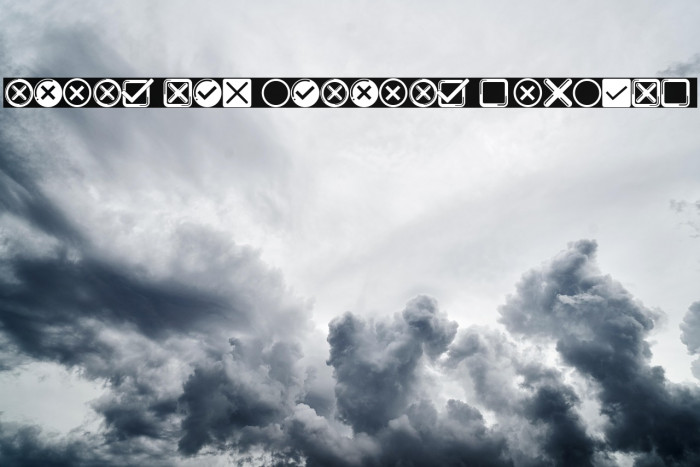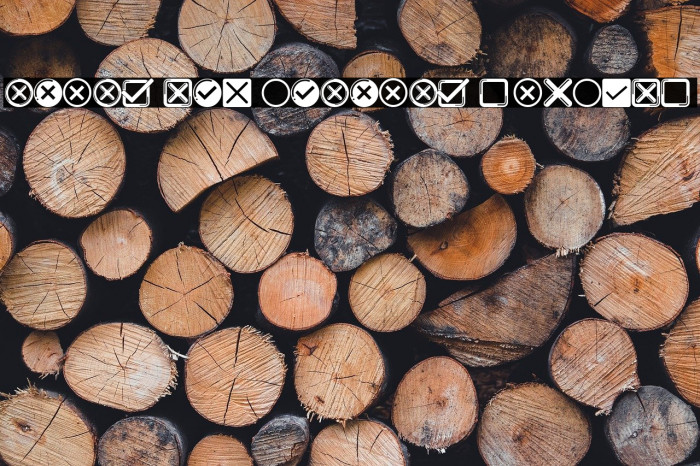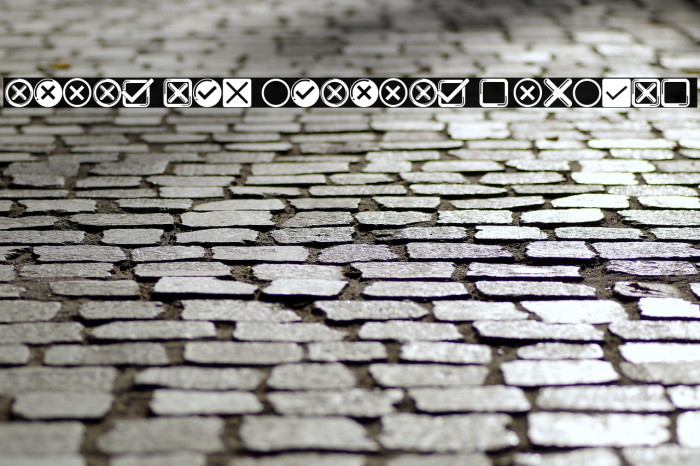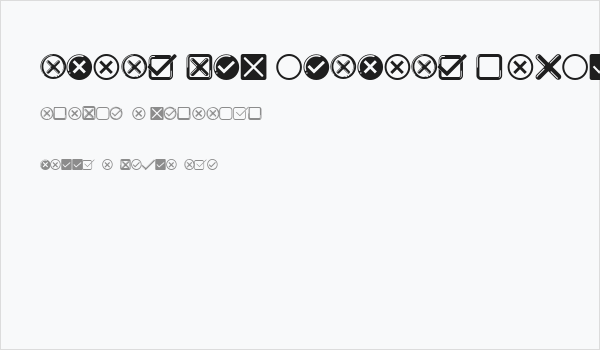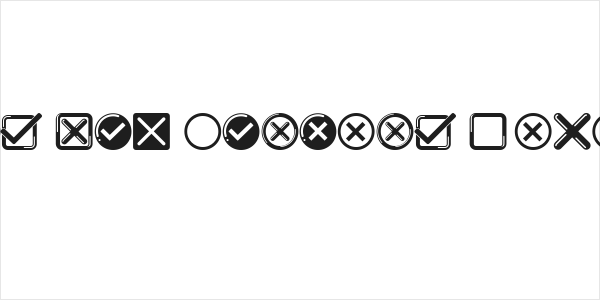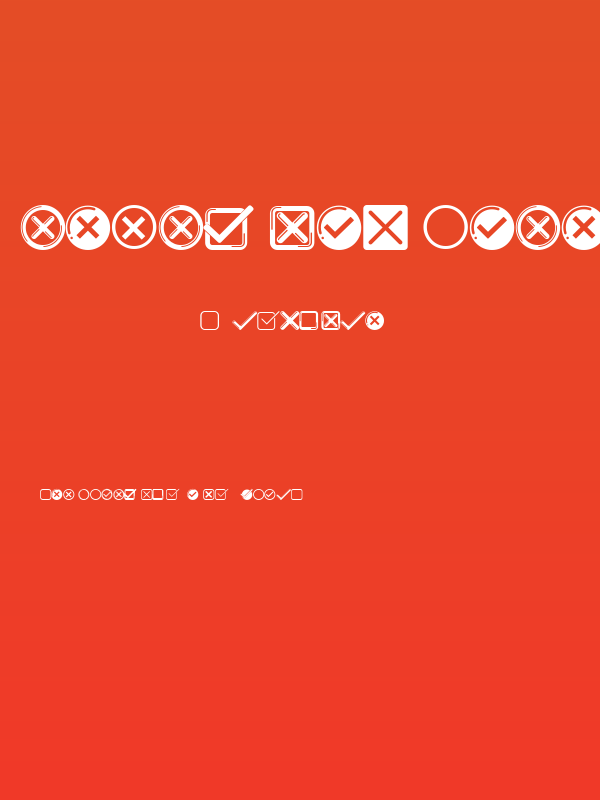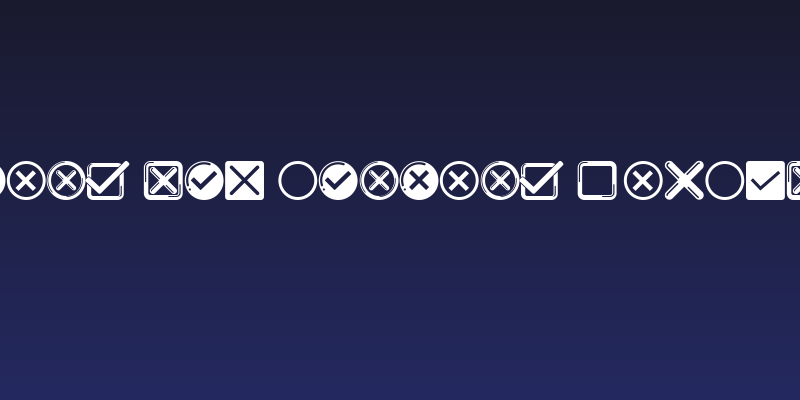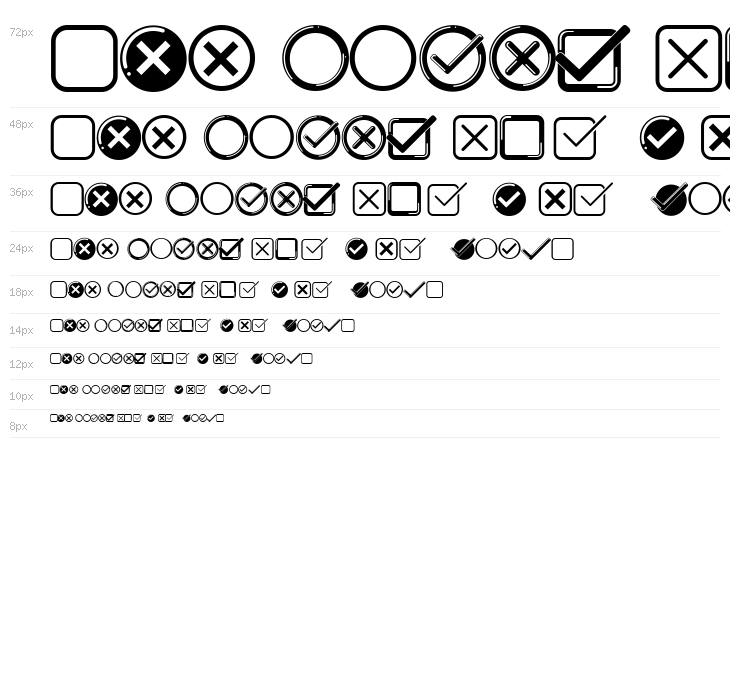
Check And Uncheck Regular Font
Check And Uncheck Regular Description
This is a set of icons representing checkboxes and radio buttons in various states. The icons include checked and unchecked boxes, as well as checked and unchecked circles. The style is clean and modern, with bold outlines that make each icon easily distinguishable. The check marks are simple and clear, ensuring quick recognition. The use of both filled and outlined styles provides versatility for different design needs. These icons are ideal for user interfaces where clarity and simplicity are paramount.
| Use Case | Icons, User Interface |
| Proposed Projects | Ideal for user interface design, mobile apps, web applications, and any project requiring clear selection indicators. |